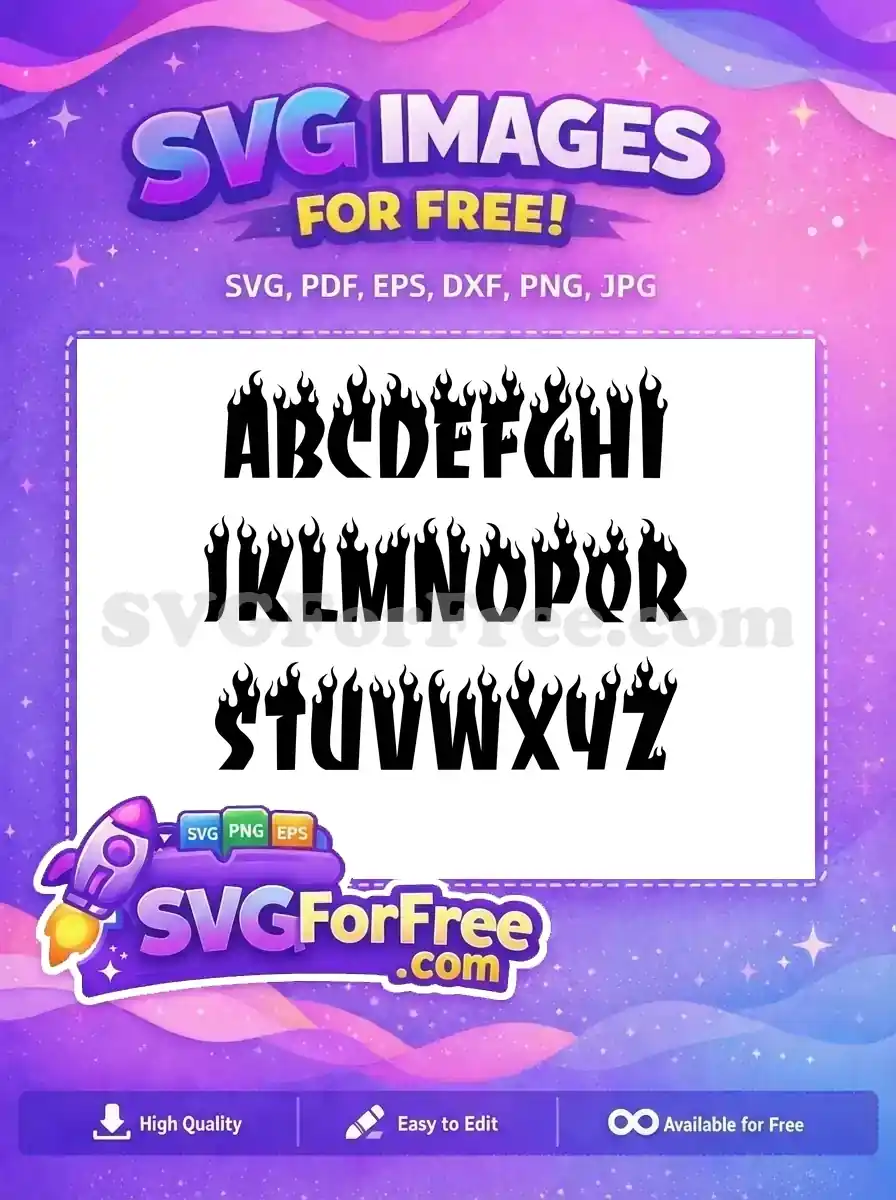
Free Flaming Font Free Alphabet Letters Font Free SVG – Instant Download
A complete alphabet set in a fiery, heavy metal-inspired font with flame-like details. A free font style.
Free Flaming Font Free Alphabet Letters Font Free SVG